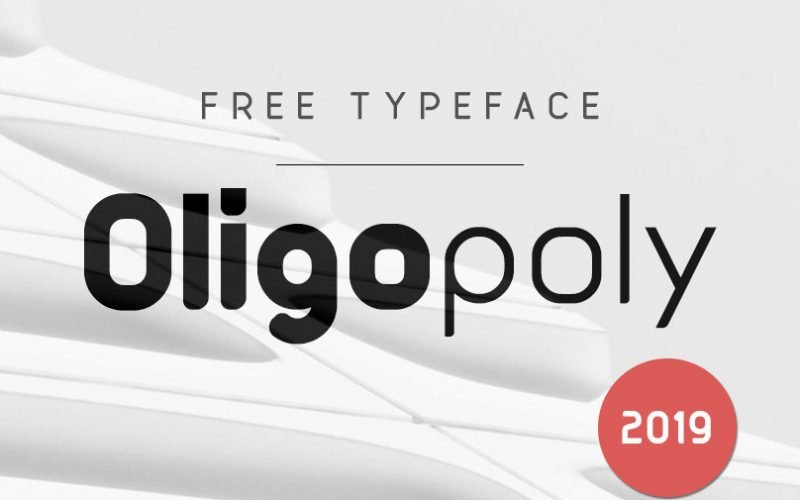
Oligopoly Typeface
Thank you for looking this font. Introducing Oligopoly Free Font! Thanks to its spurless letterforms and some uncommonly shaped letters, this typeface creates a strong visual impact even in small sizes. Having generously rounded angles and terminals, Oligopoly also spreads warmth and friendliness. A typeface inspired by love, passion and balance.
Great for word-mark logos or fashion mastheads. Oligopoly is both feminine and masculine with sharp angles and soft curves. It’s a versatile typeface that’s full of sleek curves and one you’ll use to time and again.